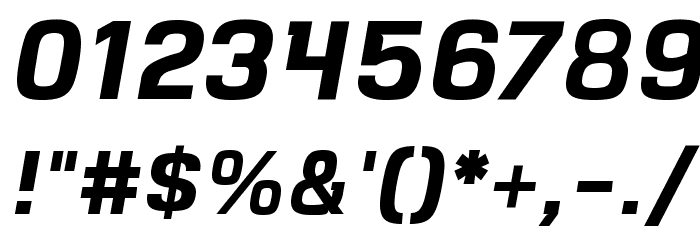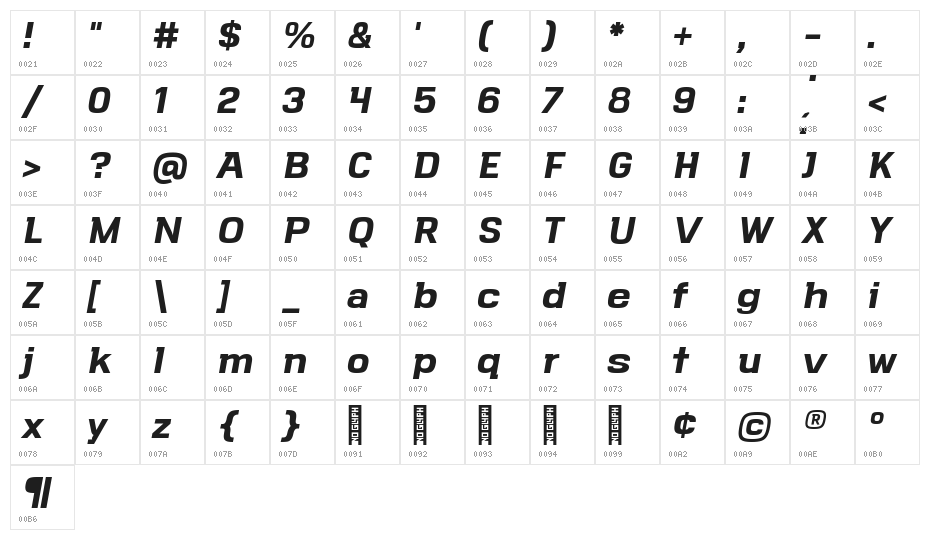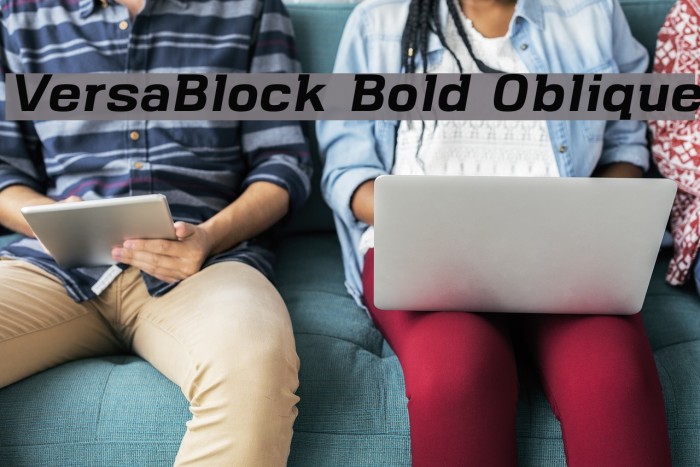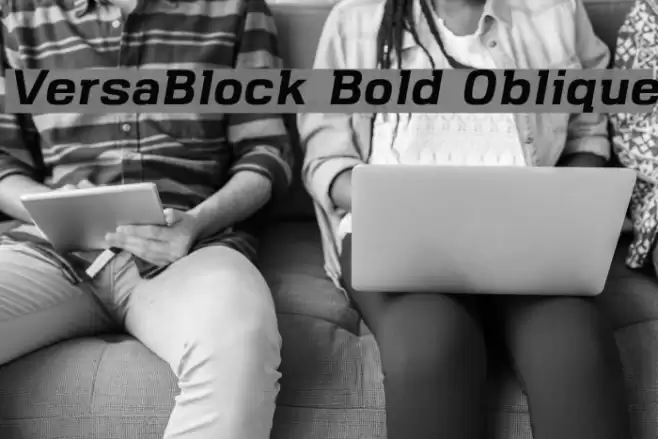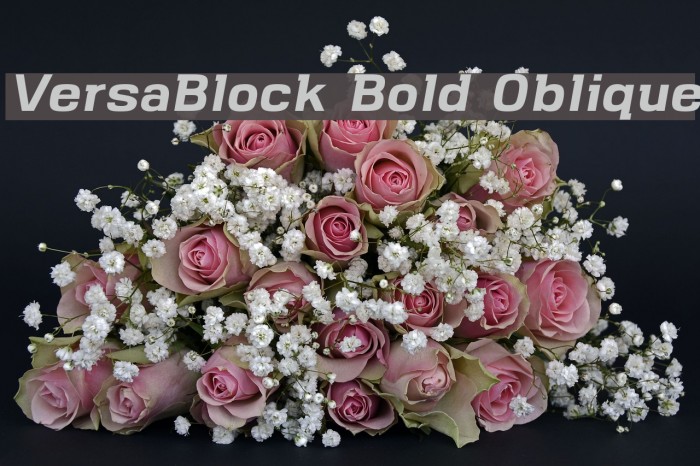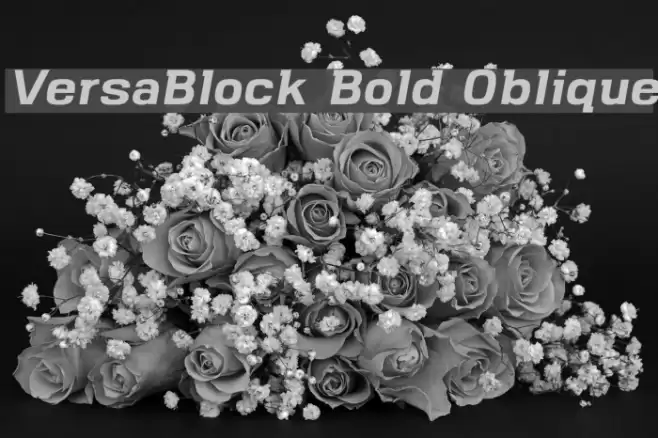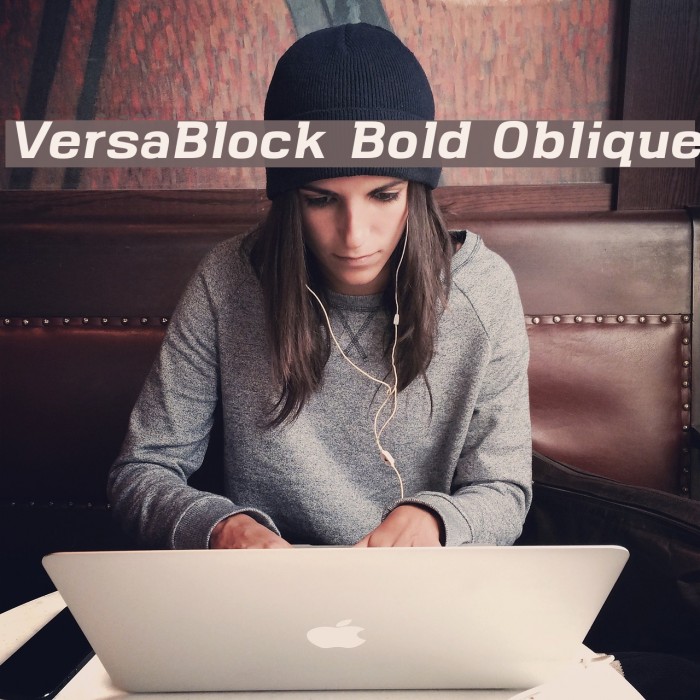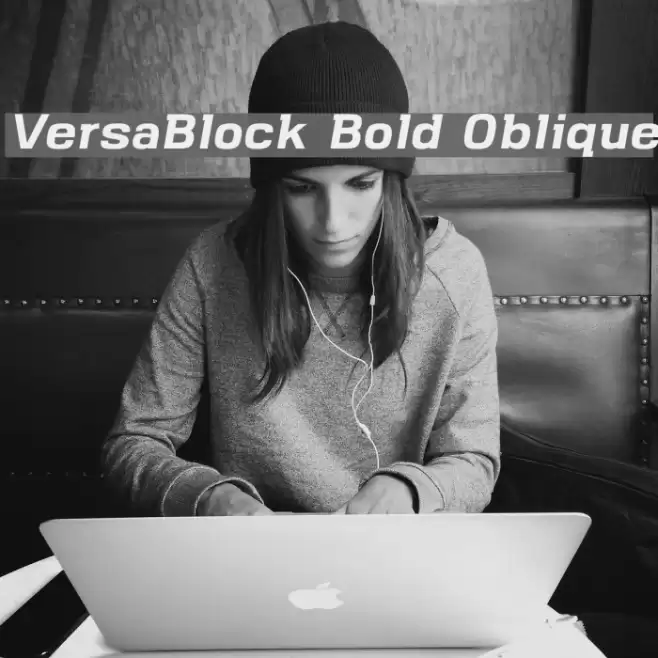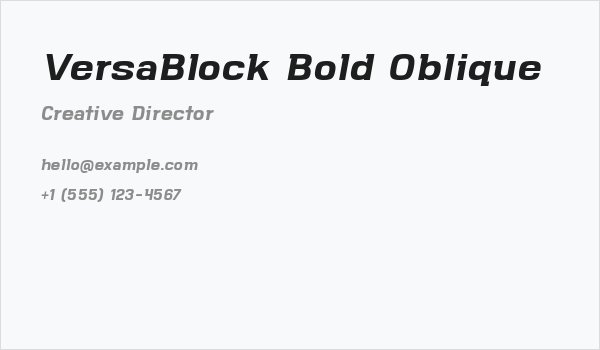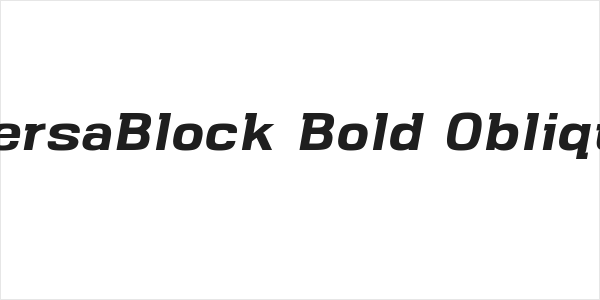
VersaBlock Bold Oblique Font
VersaBlock Bold Oblique Description
This font exhibits a bold and dynamic style with an oblique slant, giving it a sense of motion and energy. The characters are robust and impactful, making it ideal for attention-grabbing designs. The uppercase and lowercase letters maintain a consistent weight, ensuring readability while adding a modern flair. The numerals are clear and bold, matching the overall aesthetic. Special characters are well-integrated, providing versatility for various design needs. The font's strong presence makes it suitable for projects that require a bold statement.
| Proposed Projects | Ideal for headlines, posters, branding, and advertising materials where a strong, impactful presence is required. |